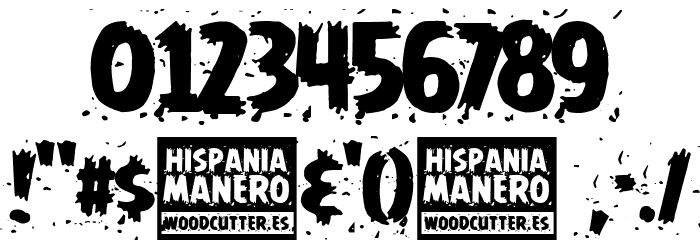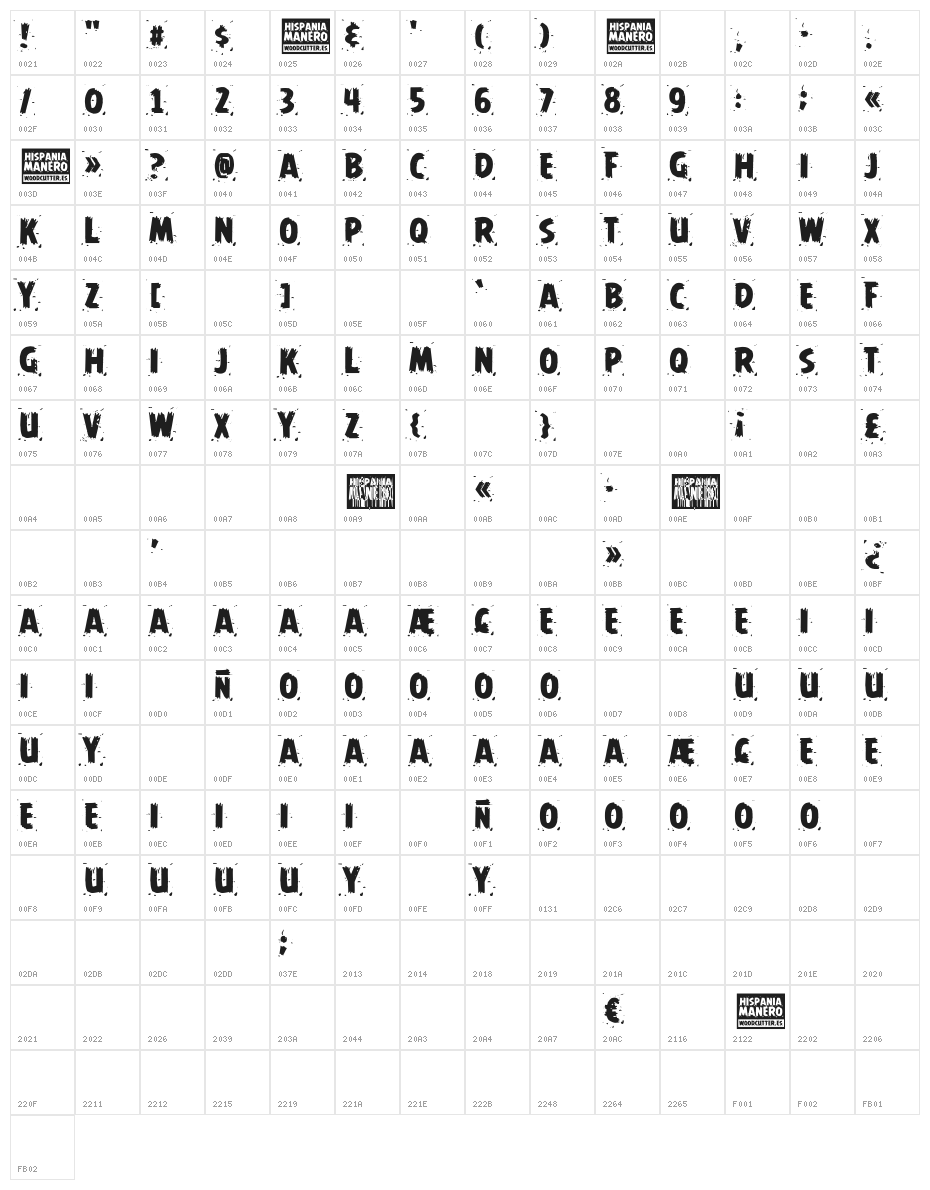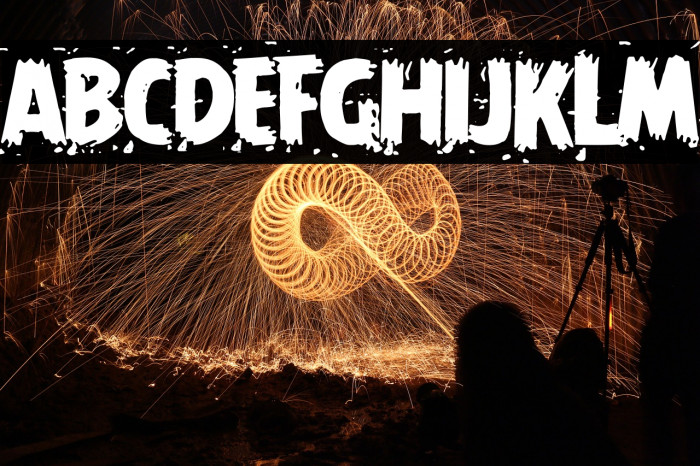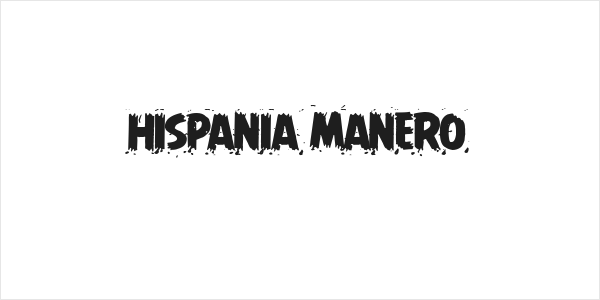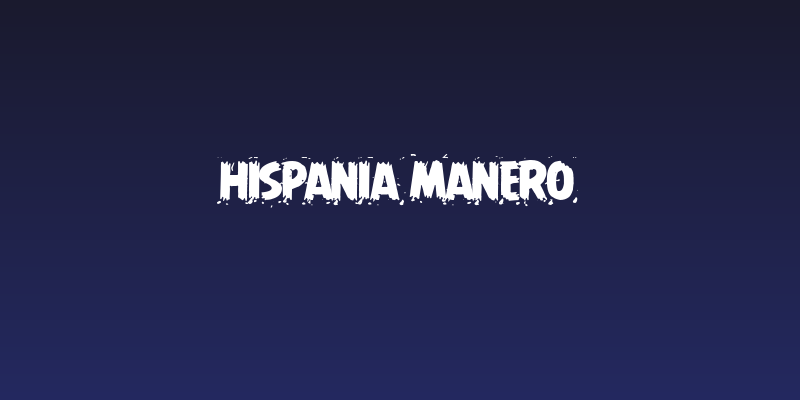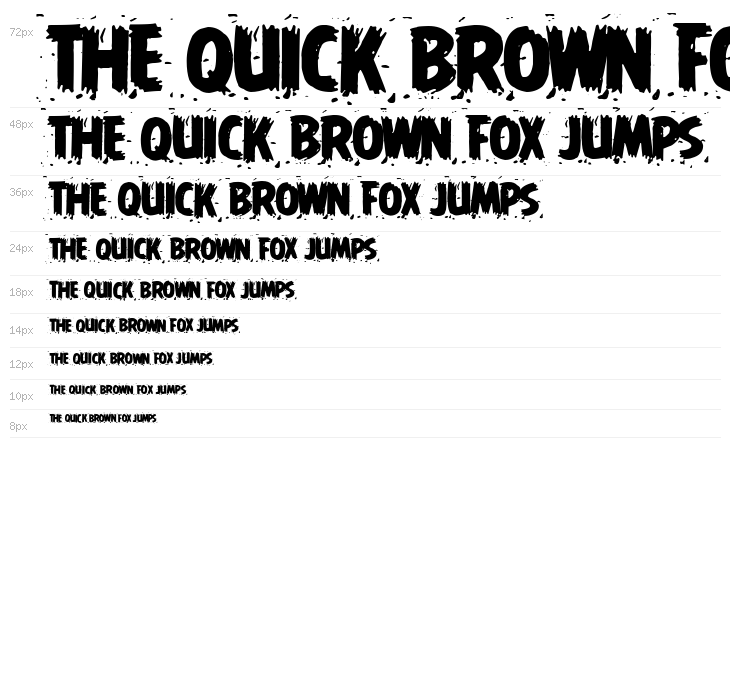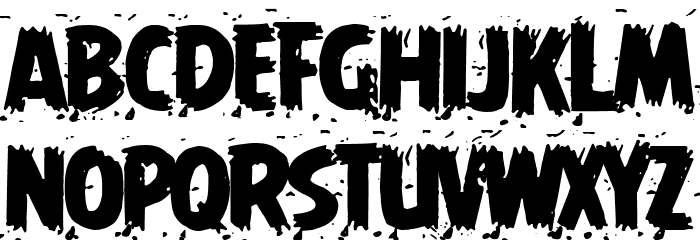
Hispania Manero Font
Hispania Manero Description
This font features a bold and rugged style with a distressed texture that gives it a raw, edgy appearance. The characters are thick and heavy, with irregular edges that create a sense of movement and energy. The uppercase and lowercase letters maintain a consistent weight, contributing to a cohesive look. The numbers and special characters follow the same design, ensuring uniformity across all elements. This font's unique style makes it stand out, perfect for projects that require a bold statement.
| Proposed Projects | Ideal for posters, album covers, branding for edgy products, or any design needing a bold, impactful look. |